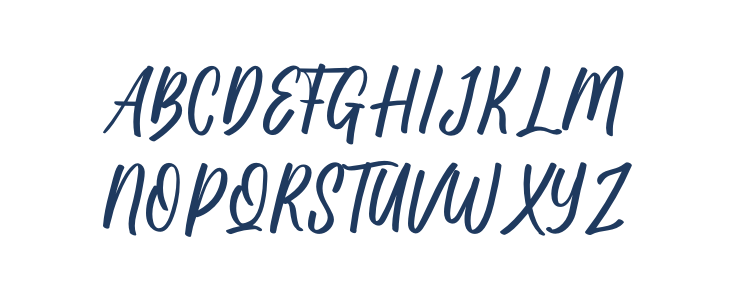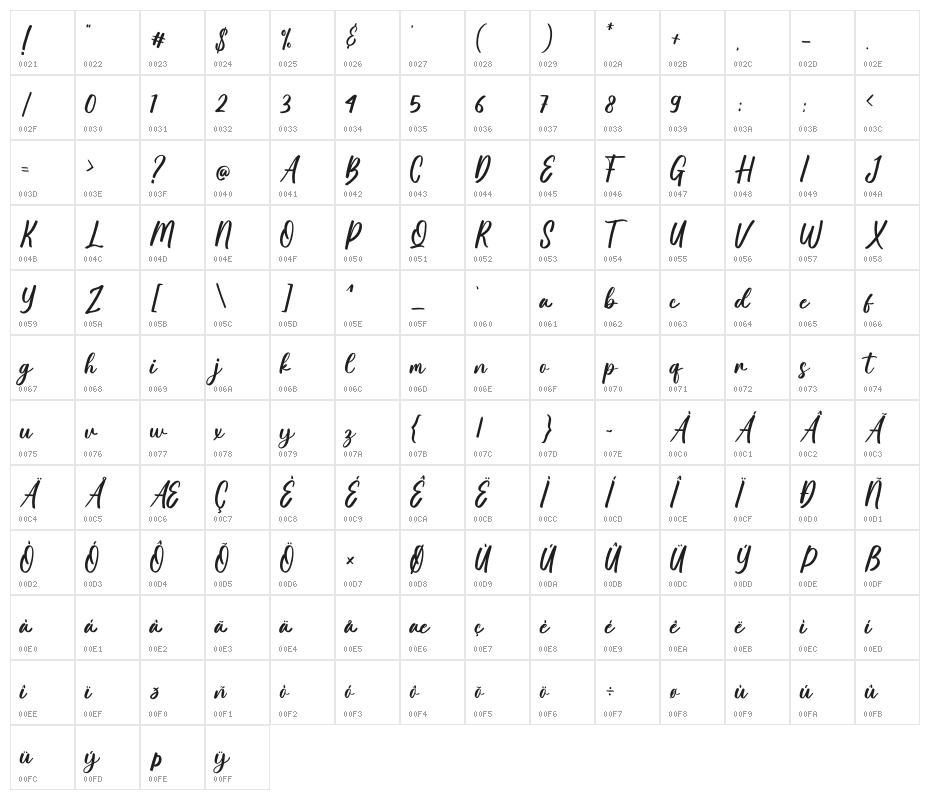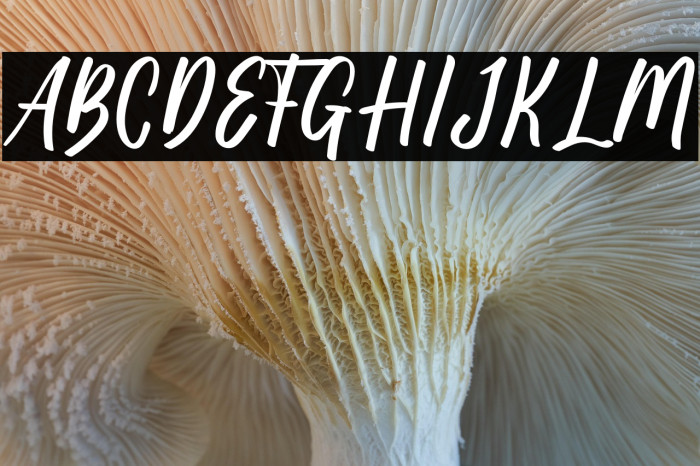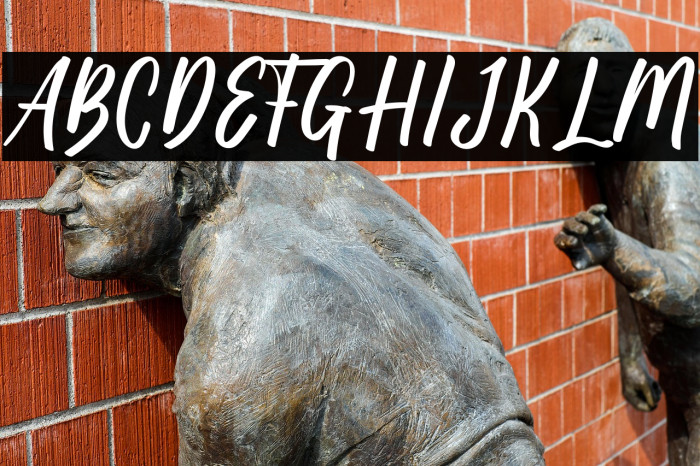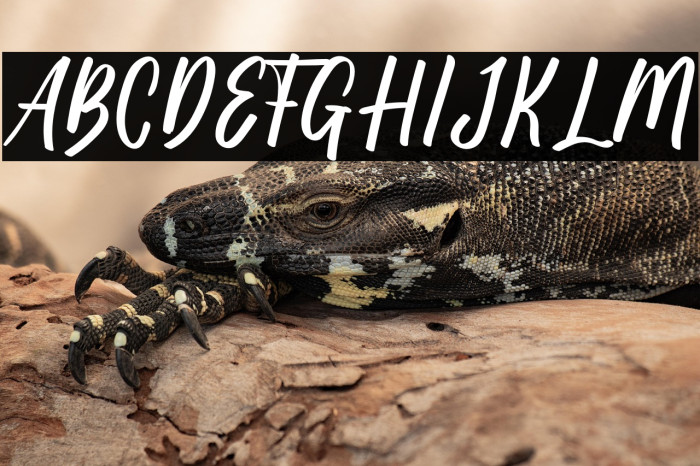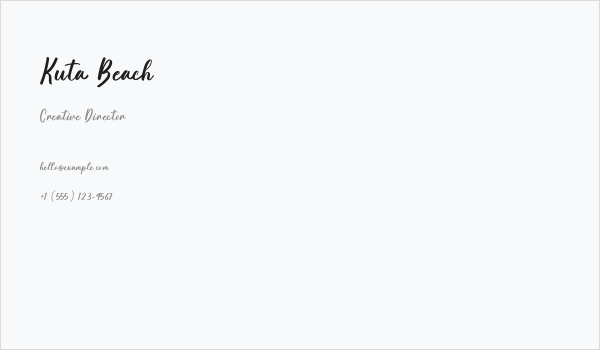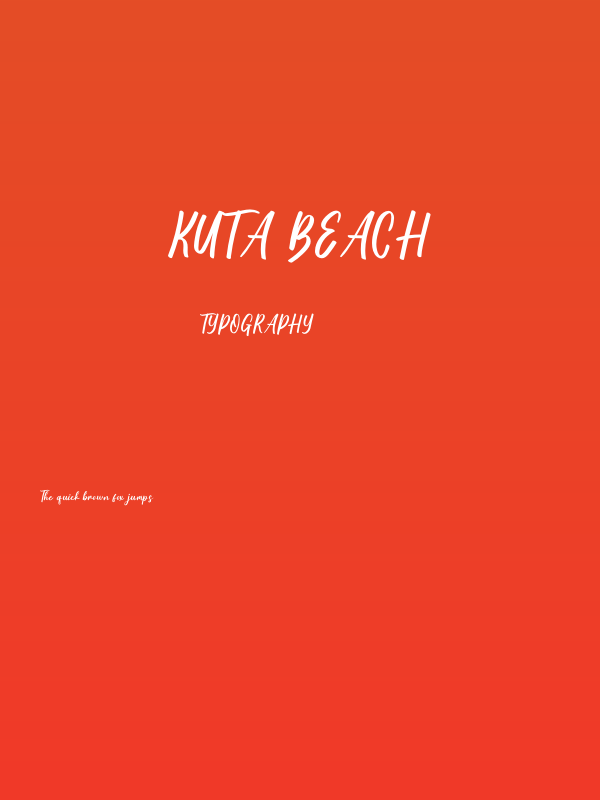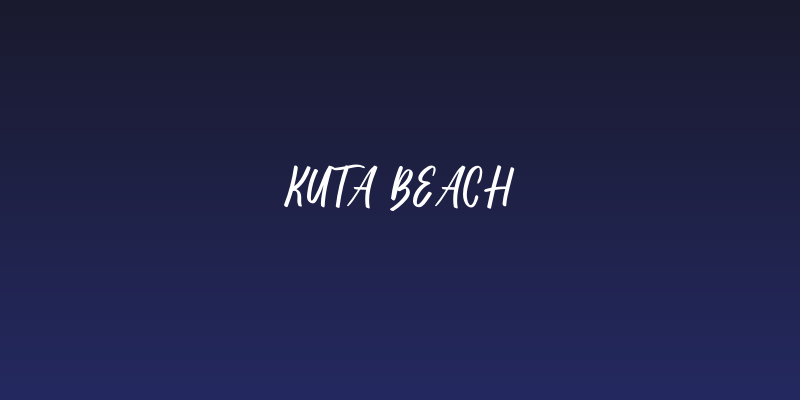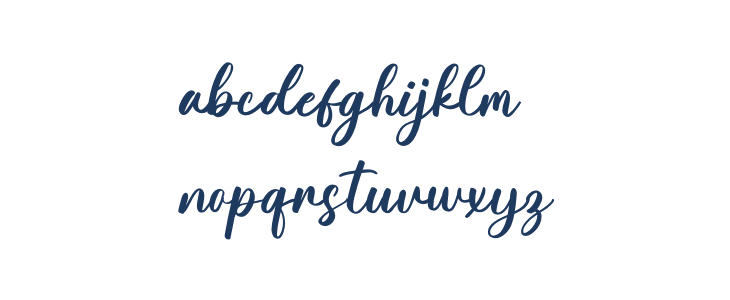
Kuta Beach Font
Kuta Beach Description
A casual, handwritten script font with smooth, flowing strokes and a slightly slanted, natural brush style. The uppercase letters are tall and expressive, while the lowercase letters maintain a consistent, rounded form. Numbers and punctuation follow the same fluid, informal aesthetic.
| Overall Style | Casual, friendly, and modern handwritten |
| Use Case | Logos, headlines, invitations, and decorative text |
| Proposed Projects | Branding, invitations, greeting cards, social media graphics, and informal headlines. |